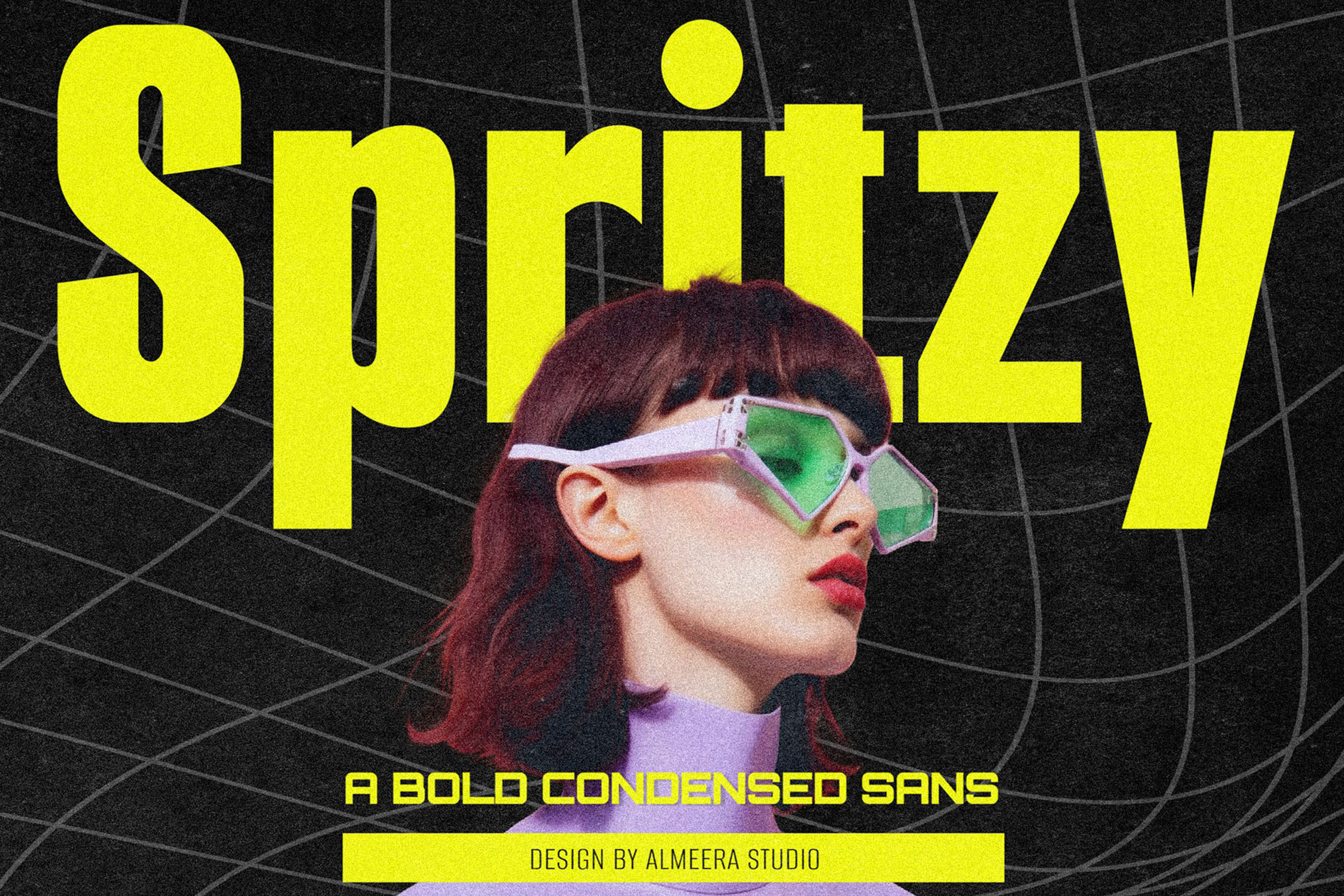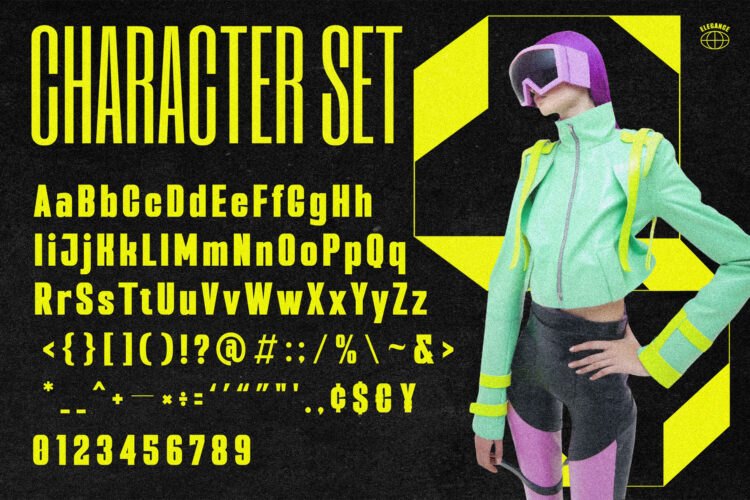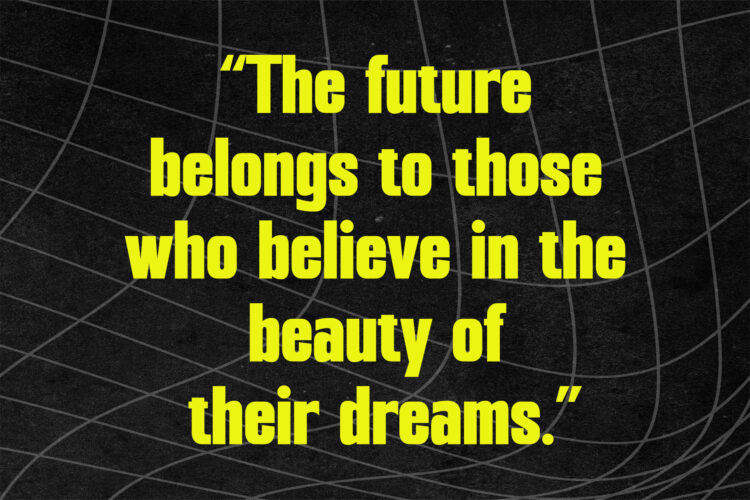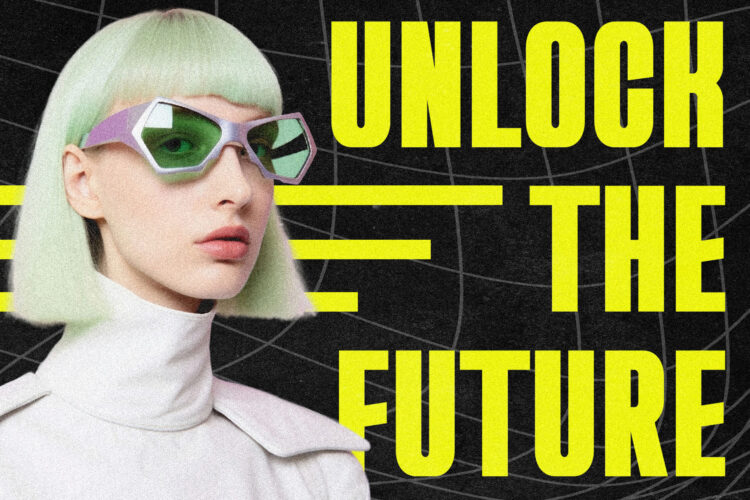
Introducing Spritzy – Modern San Serif Font. Spritzy is a display and simple san serif font, This type of font is very suitable for your various needs such as branding projects, logos, social media posts, advertisements, labels, product packaging, photography, wedding designs, watermarks, invitation product designs, stationery, and any project.
Spritzy – Modern San Serif